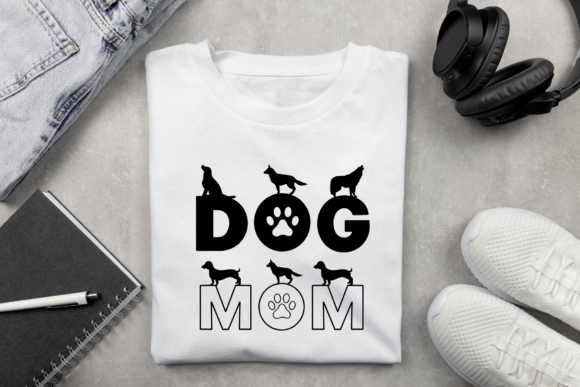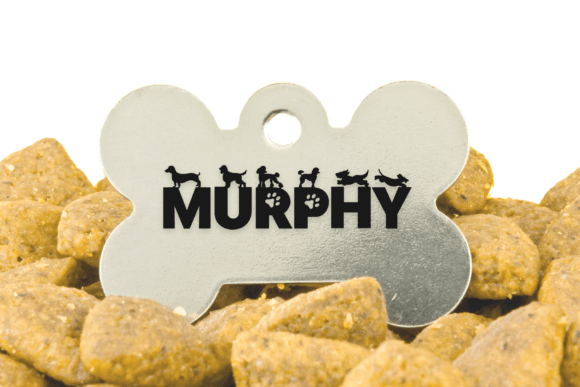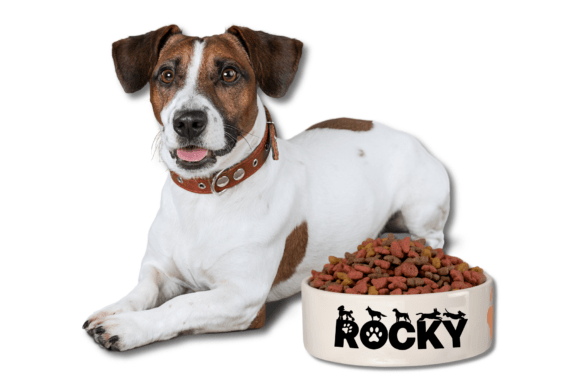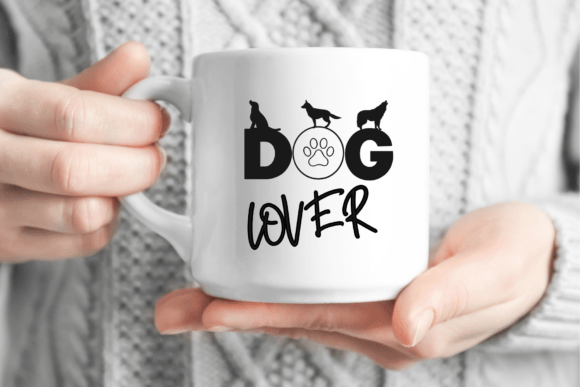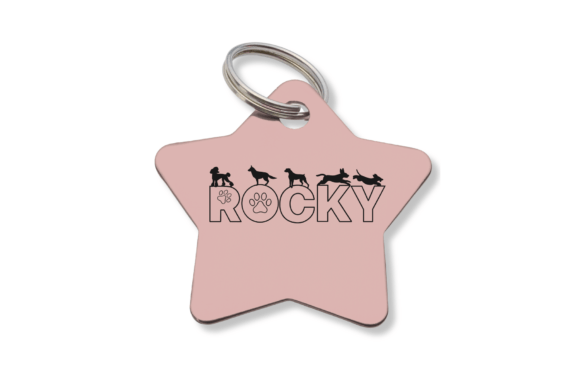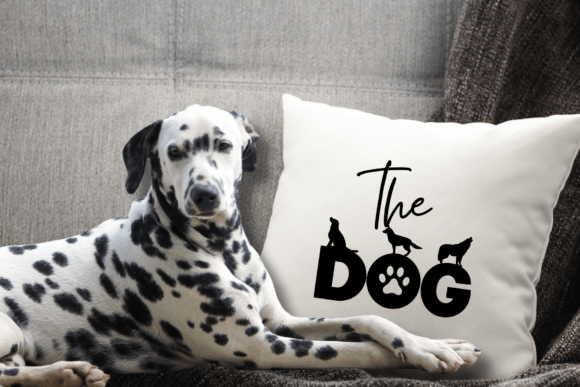
Unleashing Creativity: The Joy of Dog Font
Who hasn’t been inspired by the unconditional love and joy of our furry friends? I recall a lazy Sunday afternoon, surrounded by my own pack of playful pups, and the urge to create something special struck me. I started doodling, and before I knew it, a playful font was born – one that would eventually become the beloved Dog Font.
Dog Font is a whimsical, decorative typeface designed to bring a smile to anyone’s face. With adorable paw prints and cute dog silhouettes integrated into bold letterforms, this font is perfect for pet-related logos, T-shirt designs, signage, and anything needing a dash of warmth and personality. For designers, Dog Font offers a valuable tool to add a touch of charm and whimsy to their work.
Dog Font Key Features
- Font Family: Dog Font is a sans-serif font family designed for display and text use.
- Unique Characteristics: Dog Font features a unique, playful design with rounded edges and a friendly feel, making it suitable for children’s books, pet-related content, and more.
- Font Styles: Includes regular, bold, italic, and bold italic font styles for added versatility.
Dog Font Review
As a designer, I was excited to dive into the “Dog Font” and see what it had to offer. Here’s my honest take on this font.
- Unique character design: The “Dog Font” features some really cute and quirky character designs that are sure to bring a smile to users’ faces.
- Playful feel: The font has a playful, fun feel to it that’s perfect for branding or design projects that need a lighthearted tone.
- High-resolution quality: The font is available in high-resolution quality, making it perfect for large-scale designs or prints.
- Limited font styles: The “Dog Font” is a sans-serif font, which might not be suitable for projects that require a serif or script font.
- Limited language support: The font seems to be primarily designed for English-speaking audiences, which might limit its use for multilingual projects.
- Not suitable for formal designs: Due to its playful nature, the “Dog Font” might not be suitable for formal designs, such as business cards or resumes.
The “Dog Font” is a fun and quirky font that’s perfect for lighthearted design projects. While it has some limitations, it’s still a great option for designers who want to add a playful touch to their designs. Just be sure to consider the project’s tone and requirements before using this font.
Tip: Use Dog Font for playful and creative projects, such as pet-themed invitations or social media graphics.
Tip: Use Dog Font for custom illustrations or graphics that require a unique and playful touch.
Tip: Use Dog Font for presentations or documents that require a fun and engaging tone.
Dog Font is perfect for:
- Pet-themed projects
- Children’s books and educational materials
- Social media graphics and ads
- Invitations and event materials
Alternatives to Dog Font
Cream Soda is a handwritten script font that is perfect for creating a friendly and approachable tone in your designs. It is ideal for use in logos, branding, and advertising materials where you want to convey a sense of warmth and personality.
Compared to Dog Font, Cream Soda has a more relaxed and casual feel, making it a great choice for projects that require a softer, more human touch. While Dog Font has a more energetic and playful vibe, Cream Soda is better suited for designs that need a more subtle and understated approach.
Great Vibes is a modern and elegant script font that is perfect for creating a sophisticated and refined tone in your designs. It is ideal for use in high-end branding, luxury packaging, and premium advertising materials where you want to convey a sense of glamour and sophistication.
Compared to Dog Font, Great Vibes has a more polished and refined feel, making it a great choice for projects that require a more high-end and luxurious approach. While Dog Font has a more playful and energetic vibe, Great Vibes is better suited for designs that need a more sophisticated and elegant touch.